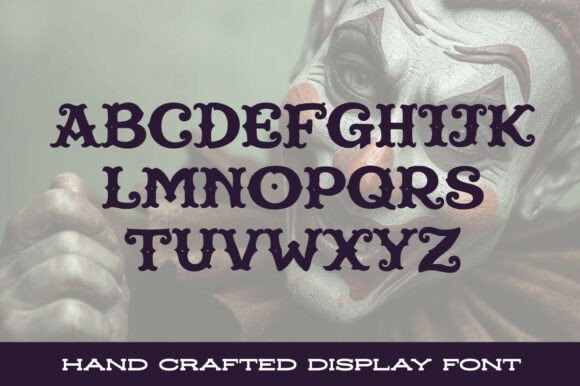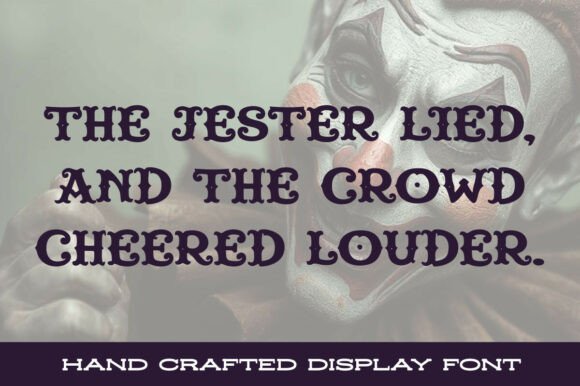
Introduction to Jesterly Font
Jesterly is a whimsical, old-fashioned typeface with a theatrical spirit and a playful twist.
Each letter features curled serifs and quirky curves that dance across the baseline, evoking the flair of a court jester’s costumeβ€”elegant yet mischievous It combines vintage charm with a touch of hand-crafted humor, making it perfect for storybooks, festival posters, boutique branding, or anything that calls for a bit of ornate fun.